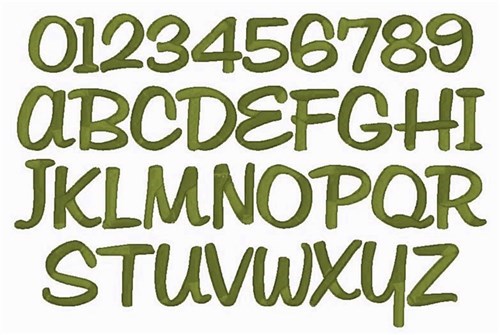
Easy Embroidery is happy to present Honey Bee Embrilliance Font machine embroidery font which has Playful script machine embroidery font ideal for adding charm to home décor and gifts, with letters in soft, rounded styles. Available in BX font and Embrilliance format. included. If you would like to view more embroidery fonts and alphabets please search our embroidery fonts page.